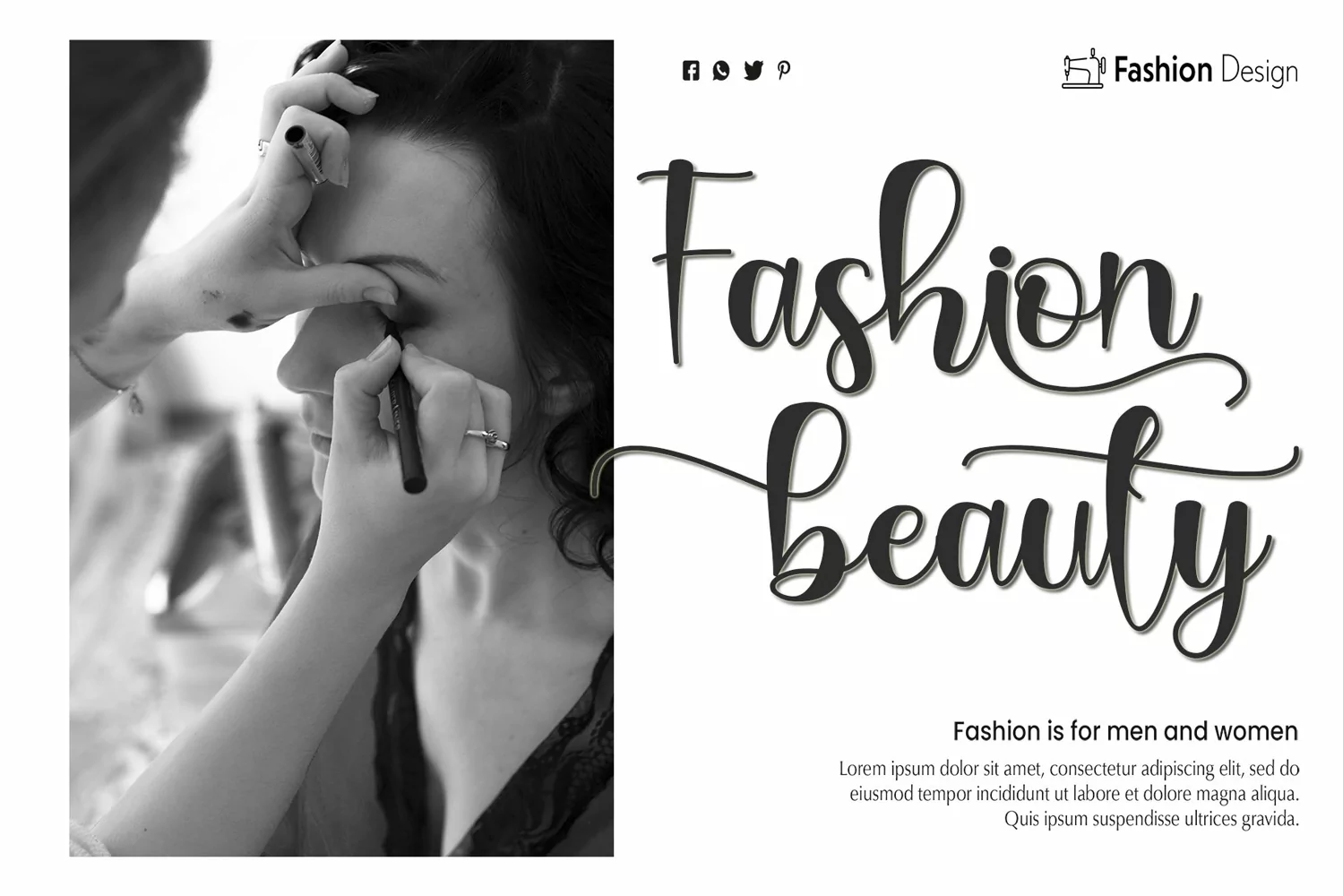
Beautiful Handwritten
BUNNYHEART
Bunnyheart Font is a modern calligraphy font by Letterafa Studio. It has flowing letters that will give your designs a unique and sweet look with many cute caracters. Bunnyheart font is perfect; logos, greeting cards, a package design, a brand identity, craft design, any DIY project, book title, wedding invitation, packaging, and more.
- Basic Uppercase and Lowercase
- Uppercase Alternate (A-Z)
- Lowercase Alternate (a-z) and Swash (a-z)
- Ligature
- Titling
- Number and Punctuation